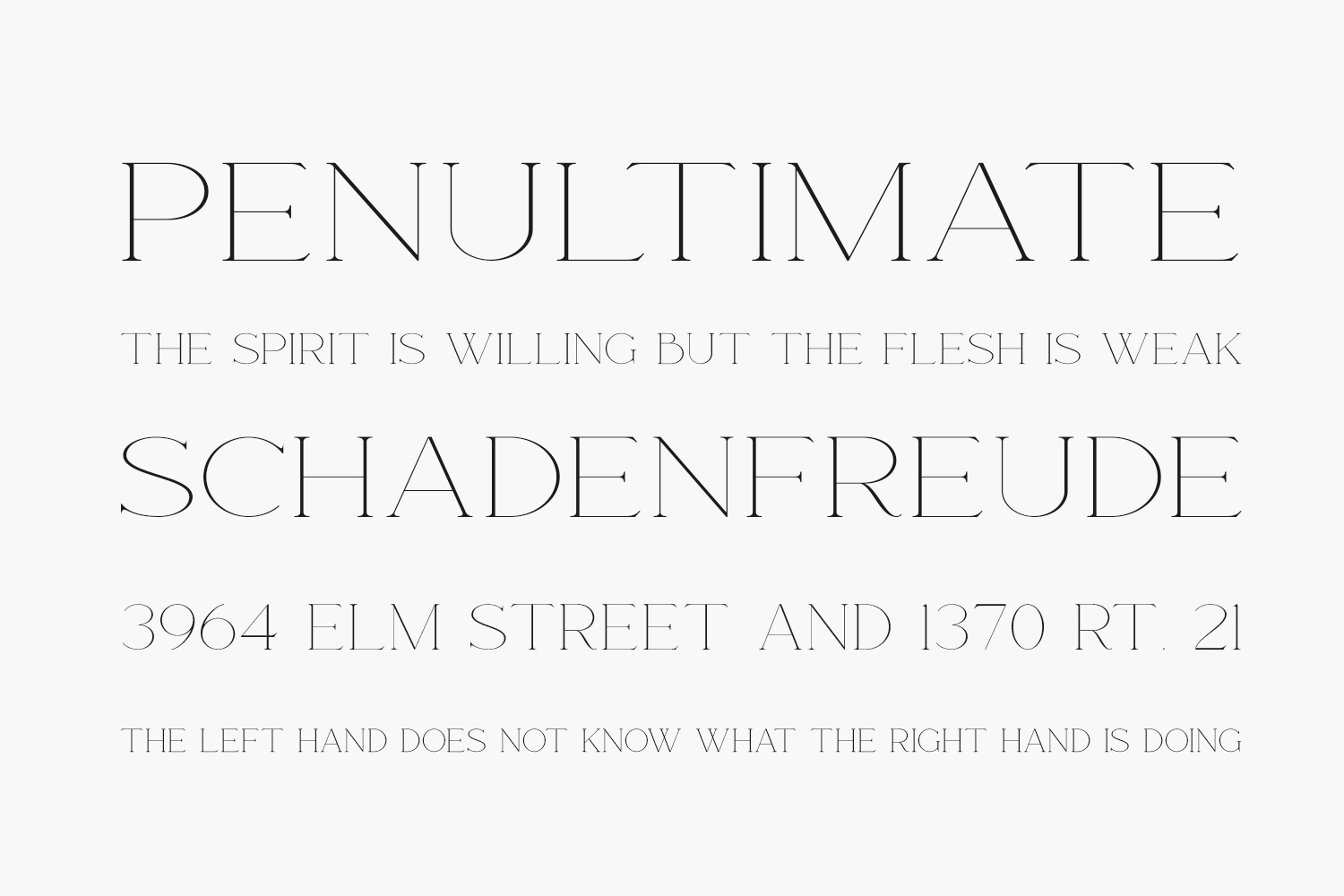
Rotten Free Font is a modern and elegant serif font with a stylish and unique design. This font features a classic serif style with a modern twist, making it perfect for a variety of design projects. The font has clean, crisp lines and sharp angles, giving it a sophisticated and professional look.